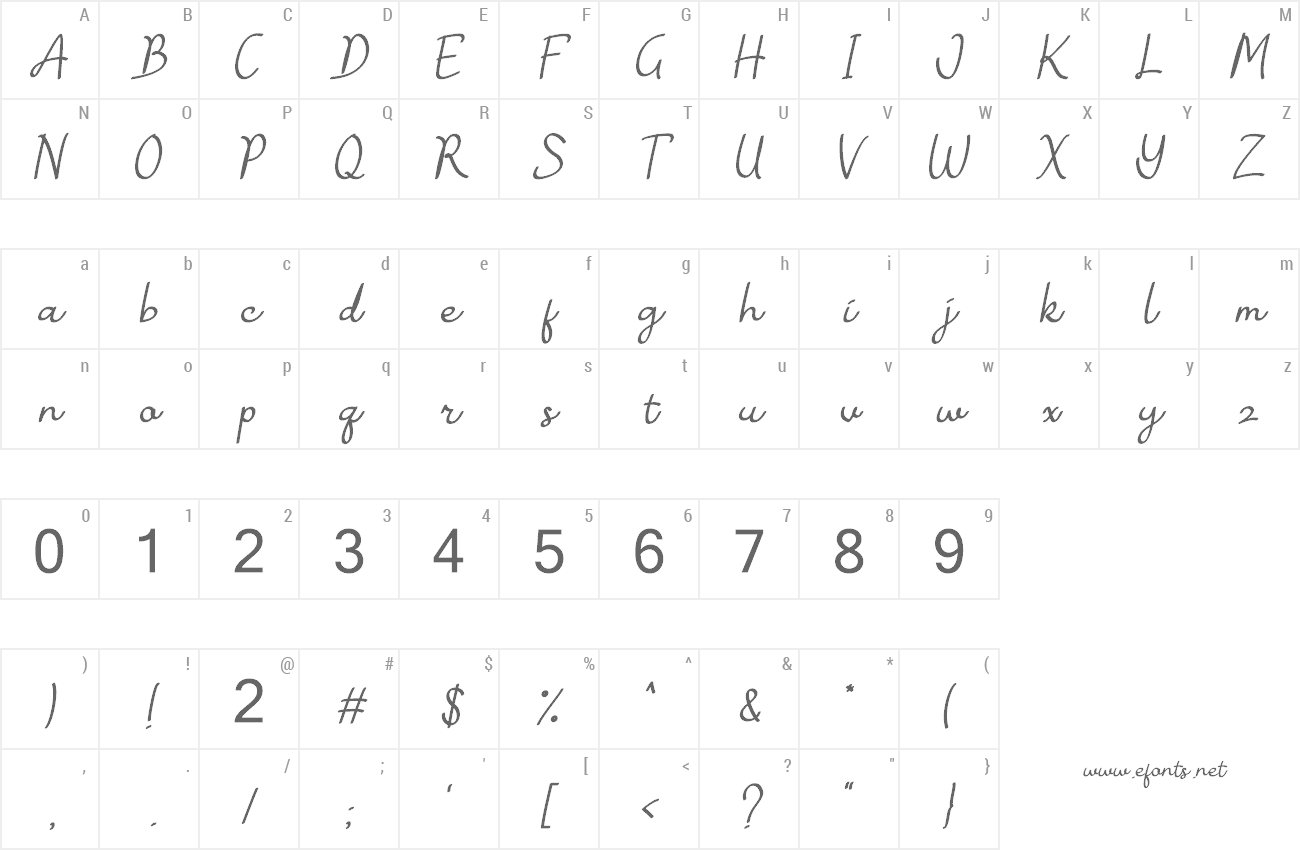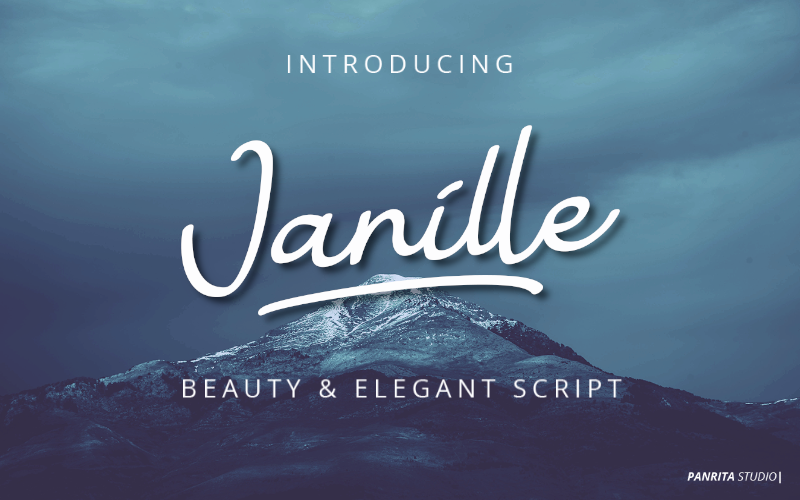
Preview and download Janille Font. Created by Khaidir Fajry in Script Handwritten styles with Demo license.
The Janille is a beautiful script font. Its handwritten style is perfect for logos, wedding invitations, birthday cards, quotes, headlines, posters, and every other design which needs an elegant typeface. This font comes with swashes option that can add beautiful touch to your design project. NOTE: this DEMO version for PERSONAL USE ONLY, please Buy a FULL VERSION for Commercial Use. Link for FULL VERSION: https://www.creativefabrica.com/product/janille/ref/227502/ Contact me: fajry.al.fatih13@gmail.com Thank You for download Fajry (Panrita Studio) |